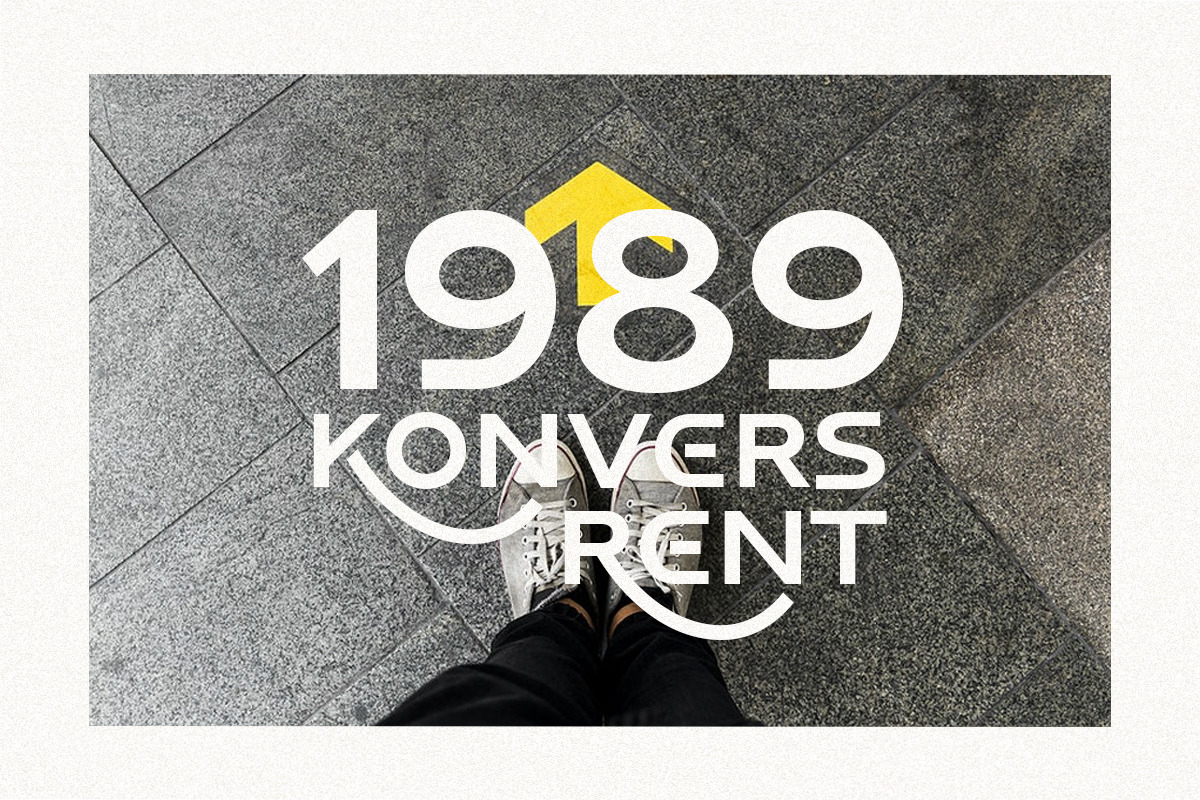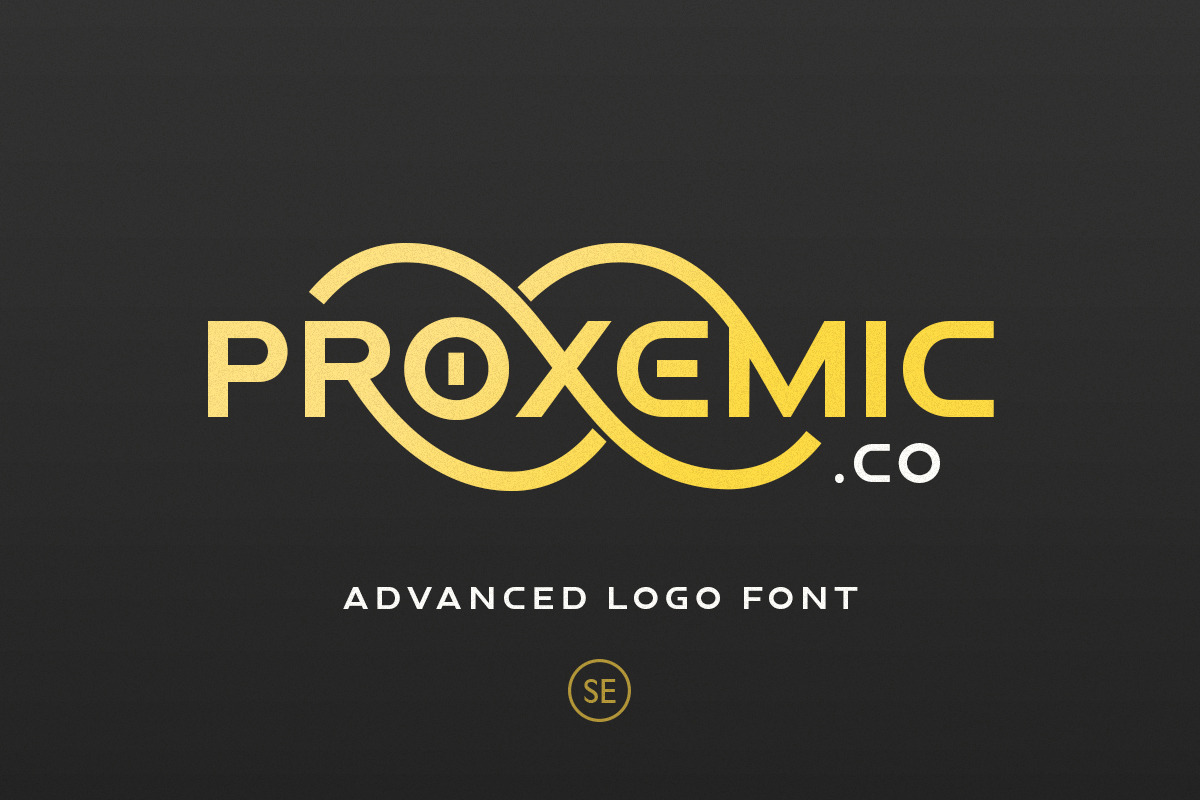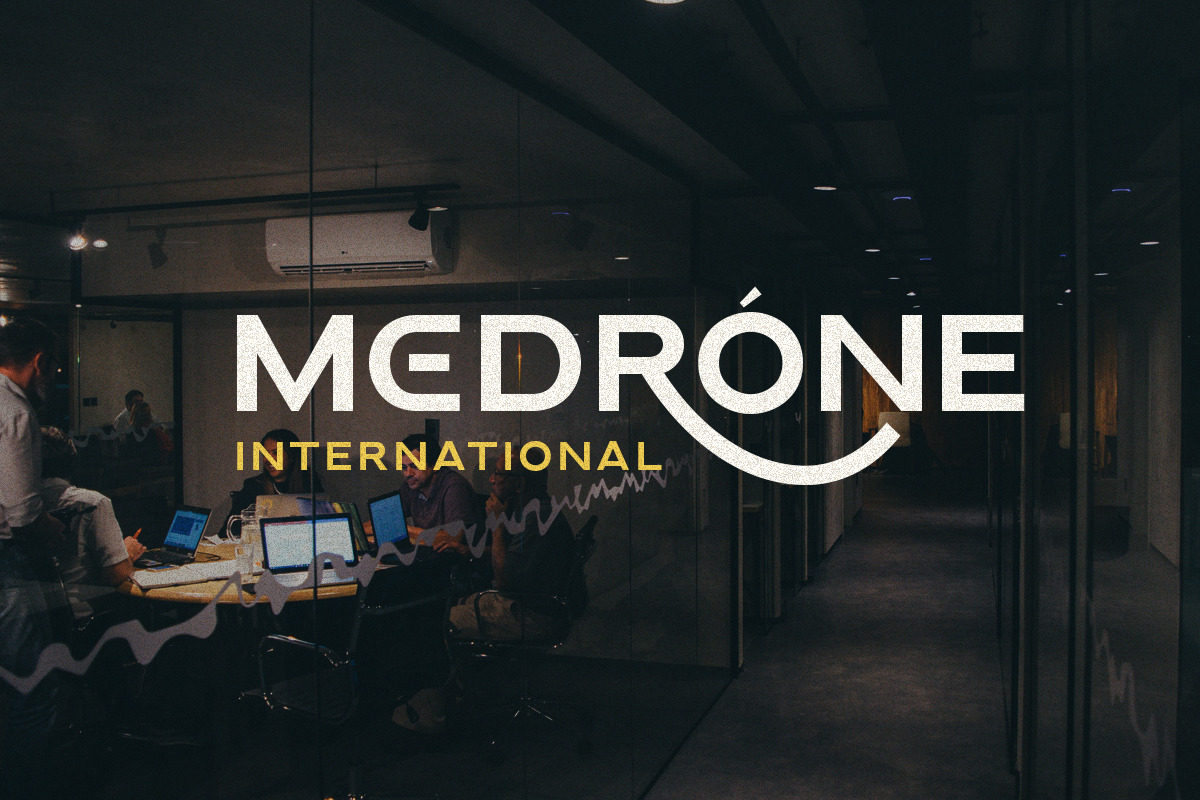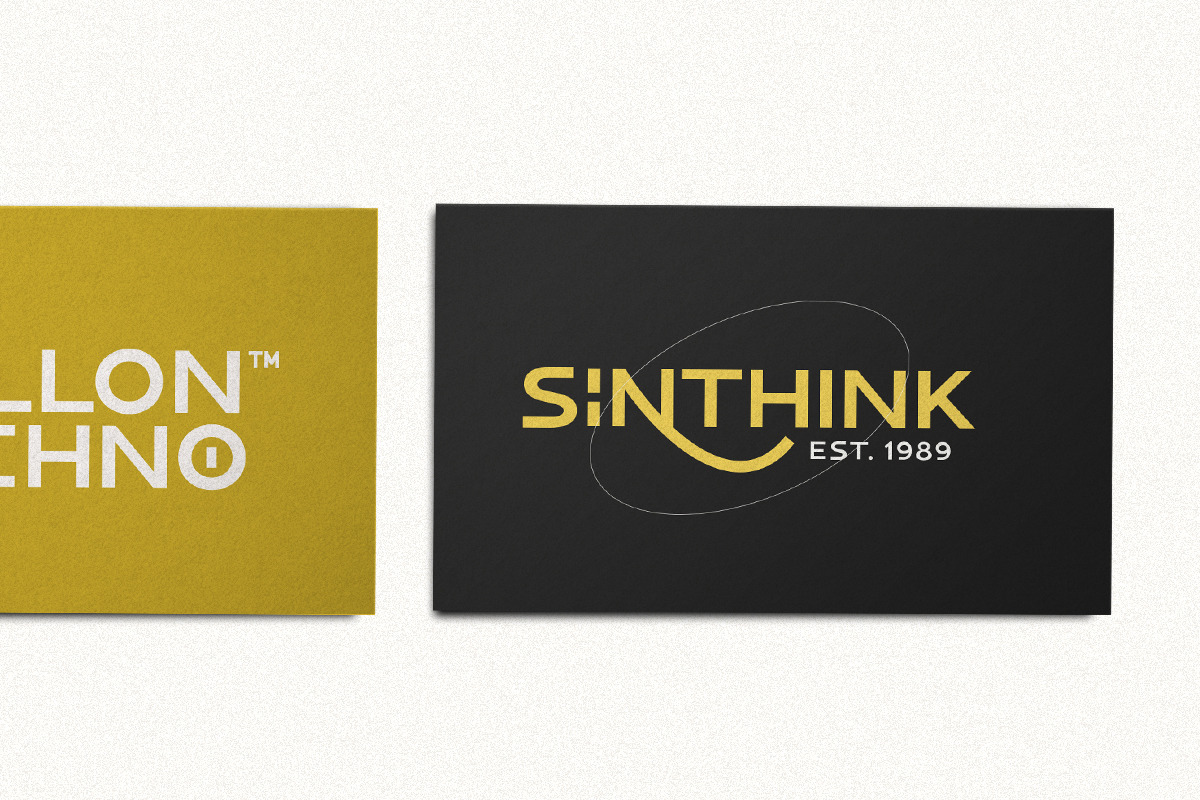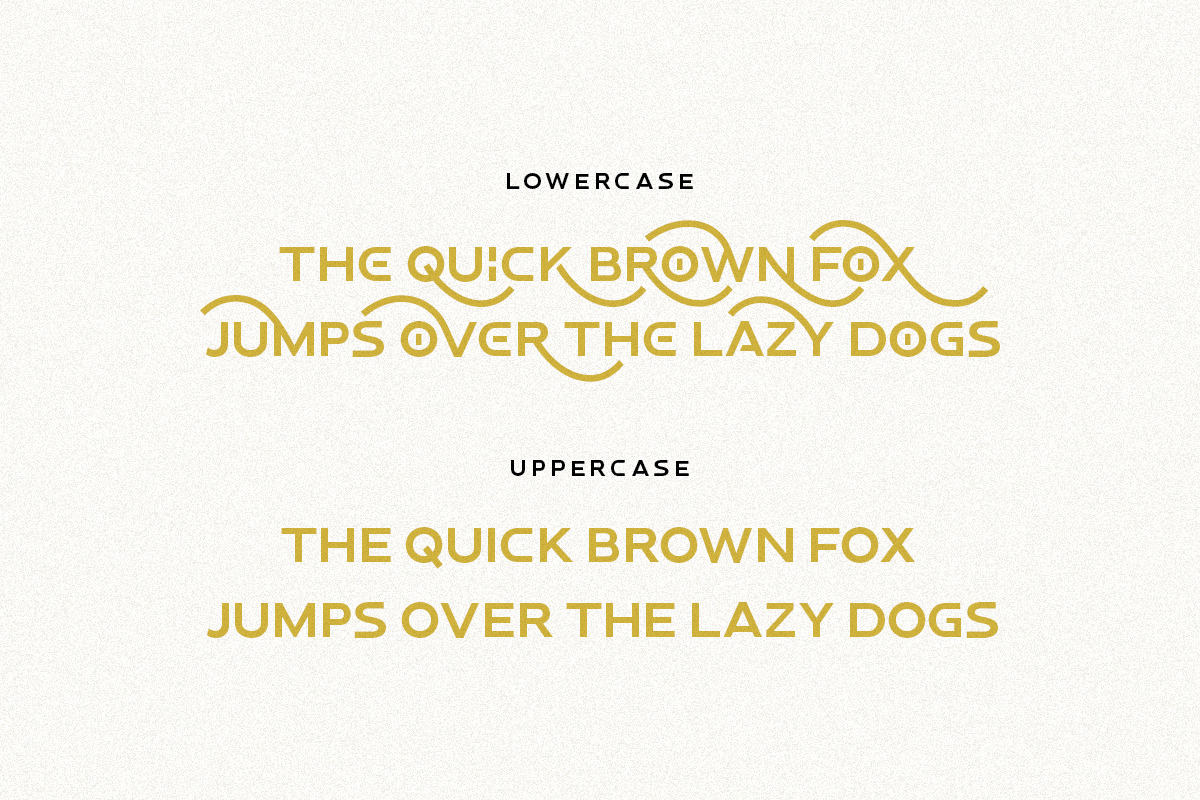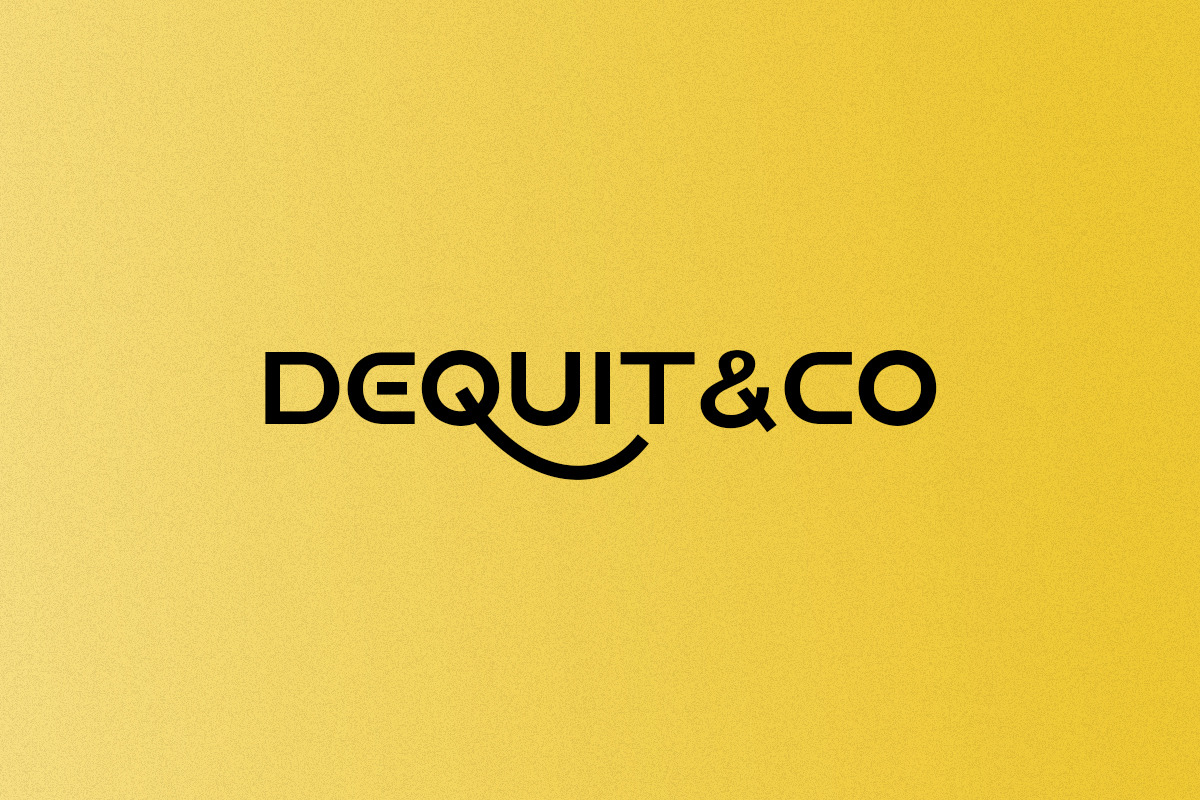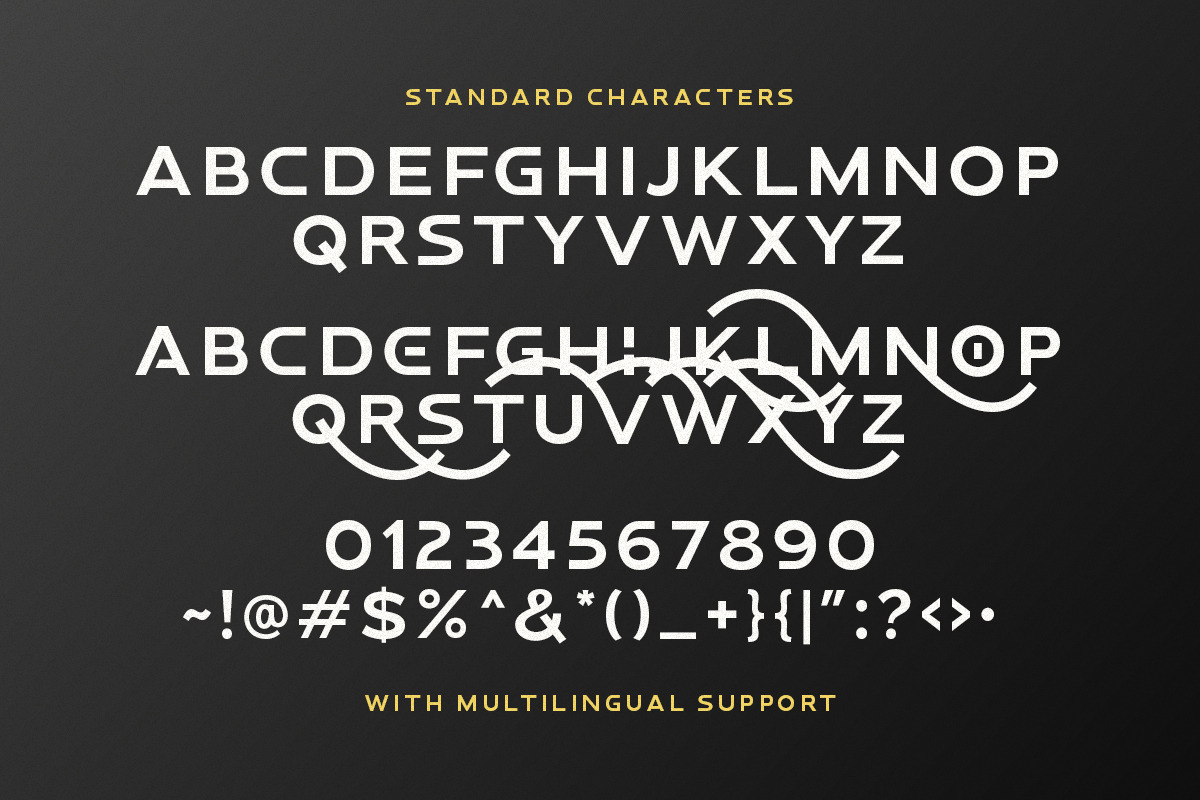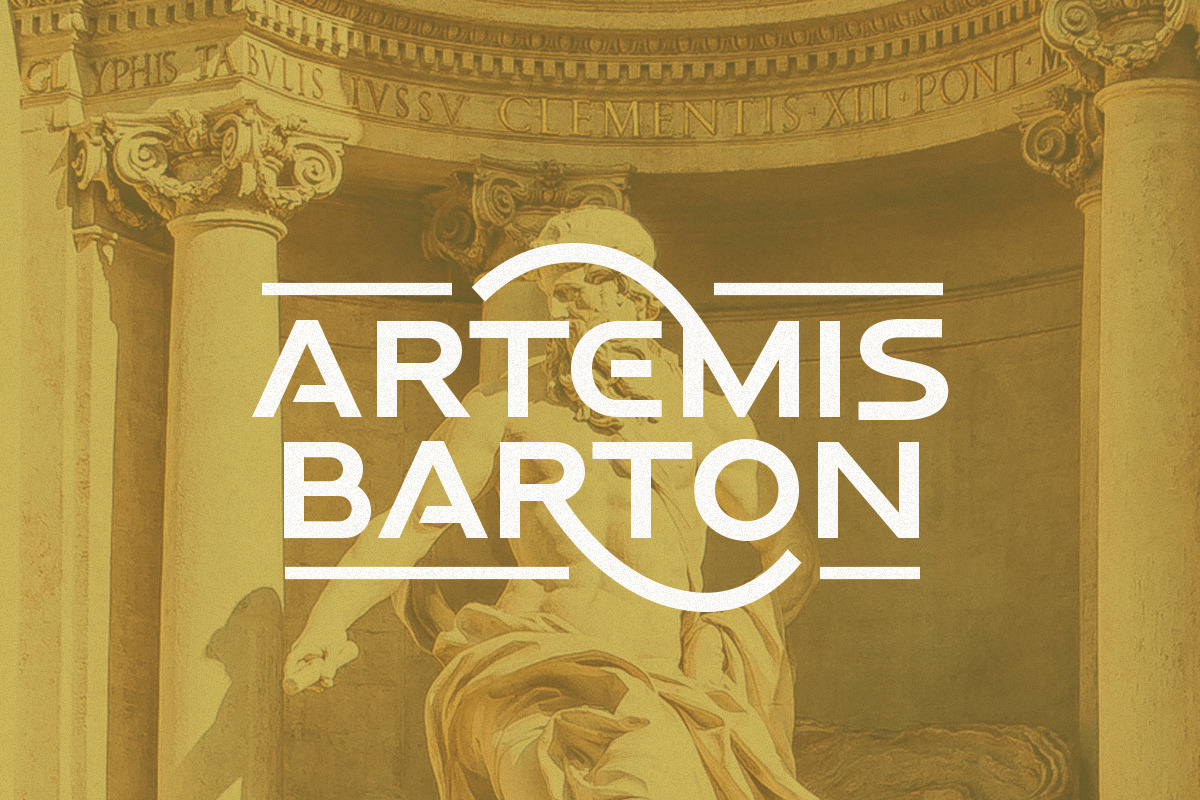
Proxemic - Advanced Logo Font
Proxemic is a bold sans based font with unique lowercase that will make your logo and design looks advance and modern. With the unique characteristic lowercase, this font can make your logo even more stunning only with simple steps. You can use this font for any purpose, especially to make logotype. You can mix and match the uppercase and lowercase to make your logo more advanced. This font also comes with number, symbol, and multilingual support!